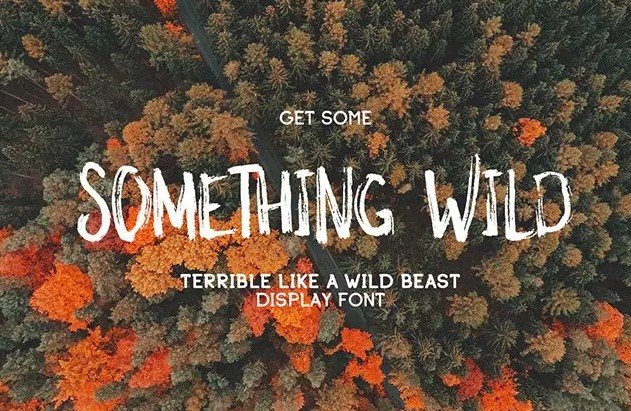
Hello Today, we’re excited to introduce the exceptionally unique and elegant Something Wild Font. This font features a rough texture, perfect for creating a variety of distinctive designs.
View Of Something Wild Font
Now, the time is came to view the sample the of great typeface. Below, we shared an image that contains the glyphs and characters of this amazing font which creates best designs in Adobe photoshop and Adobe Illustrator.
This is a unique and elegant typeface that you will utilize for making lots of popular and famous projects like postcards, flyers, brochures, and lots of other great graphic stuff that can be made easily with this font.
Style | Display |